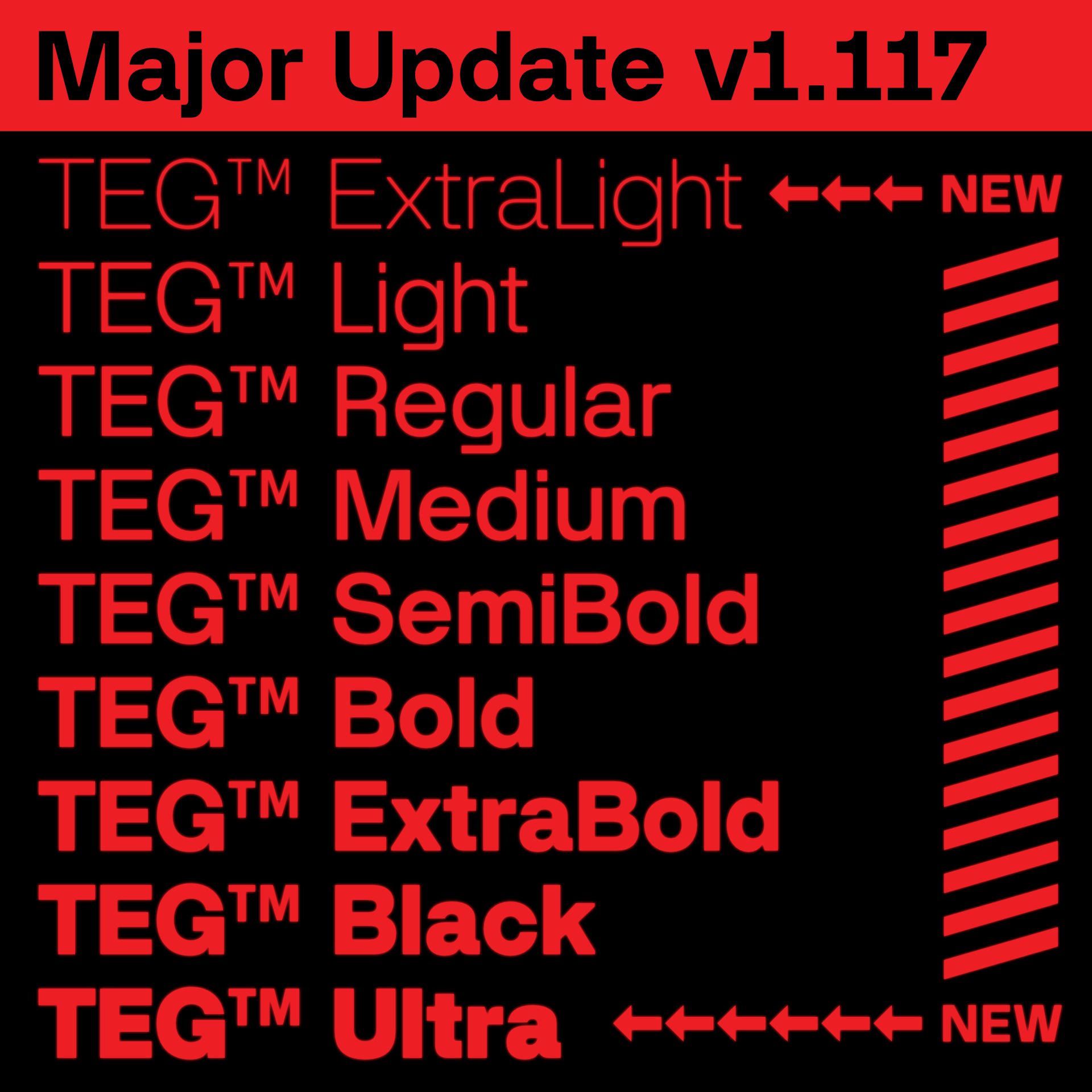
Font Updates: TEG typeface
by Alfredo Marco Pradil
UPDATES:
TEG v1.117
• Fixed lowercase a, e, b, d, p, q, g, n, m and u to be more mono-linear and consistent with the other characters (see TEG product page specimen)
• Added ExtraLight and Ultra styles